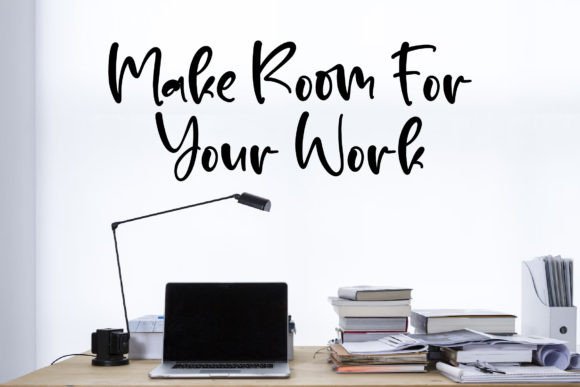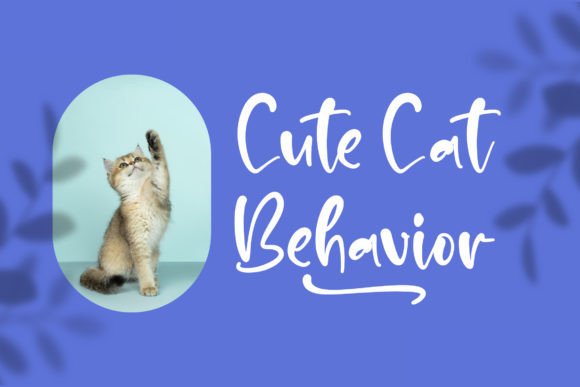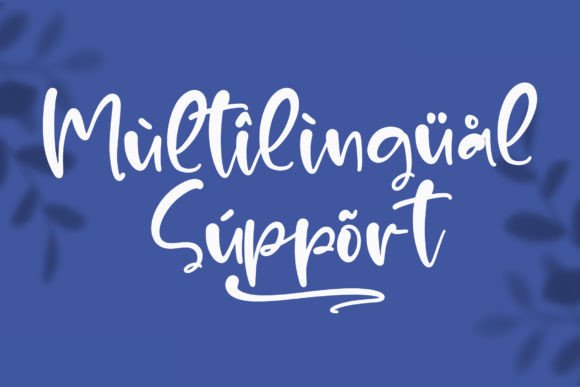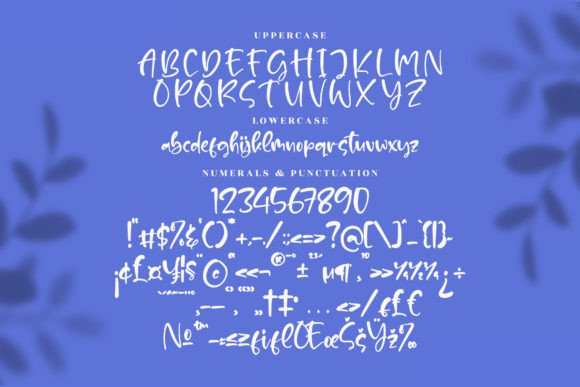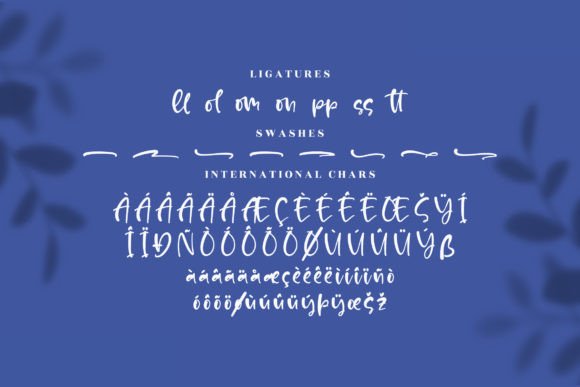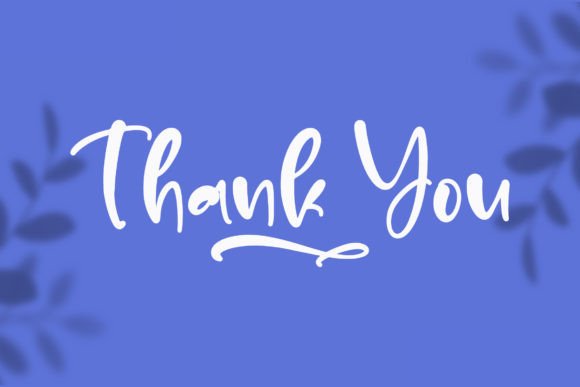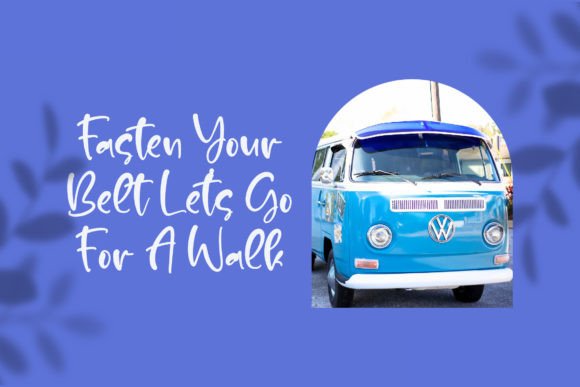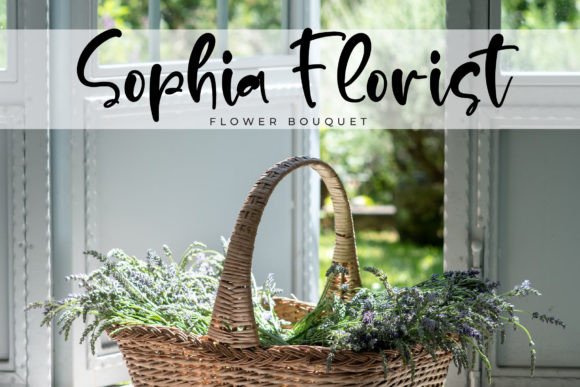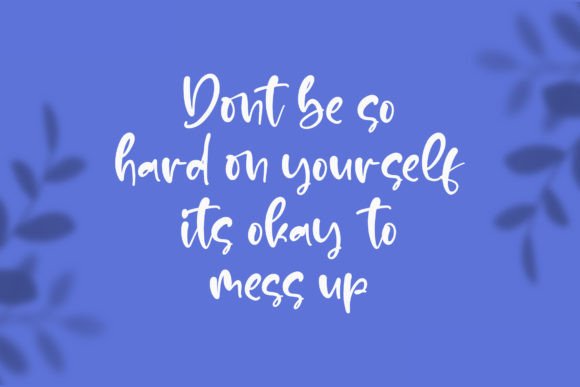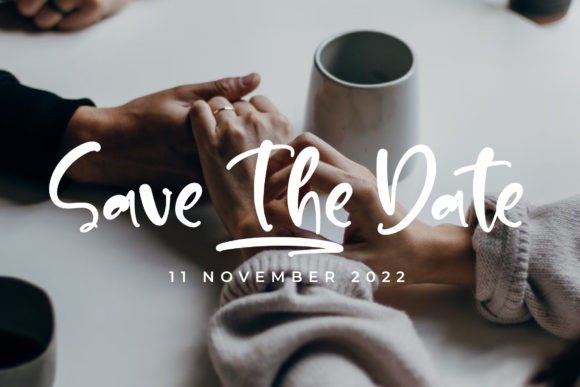
Maldonado Font
Introducing Maldonado Font
The Maldonado Font is characterized as a charming and elegant handwritten typeface known for its versatile and sophisticated style. This font offers a visually stunning and adaptable option that can elevate the aesthetics of various design projects. Its allure lies in its ability to strike a balance between charm and elegance with its handwritten script.
Why Choose Maldonado?
• Charming and Elegant: The Maldonado Font adds sophistication and personalization to your designs, making it suitable for wedding invitations, thank you cards, quotes, greeting cards, logos, business cards, and more.
• Versatile Usage: This font provides a visually captivating choice for various creative endeavors, allowing you to infuse your designs with elegance and individuality.
Applications of Maldonado Font
• Wedding Invitations: Use this font to create elegant invitations that capture attention.
• Branding: Enhance your brand identity with a script style that conveys charm.
• Greeting Cards: Perfect for adding a stylish script aesthetic to greeting cards and other creative projects.
The Impact of Using Maldonado Font
The Maldonado Font elevates your designs by making them visually captivating and memorable. This font becomes a reliable tool for designers seeking to create projects that stand out with elegance. Its balanced form ensures your designs are both refined and captivating.
The Value It Brings
This typeface excels in combining contemporary design aesthetics with classic elegance. By choosing Maldonado, you ensure your designs are not only visually appealing but also sophisticated and unique. Additionally, its PUA encoding allows easy access to all glyphs and swashes for added customization.
This font is also ideal for various creative projects beyond traditional uses. It can enhance digital designs with its elegant flair, making it suitable for websites, brochures, or mobile interfaces. The Maldonado Font adapts well to different screen sizes while maintaining its charm. As design trends evolve, this font remains relevant due to its timeless appeal, balancing style with functionality effectively.